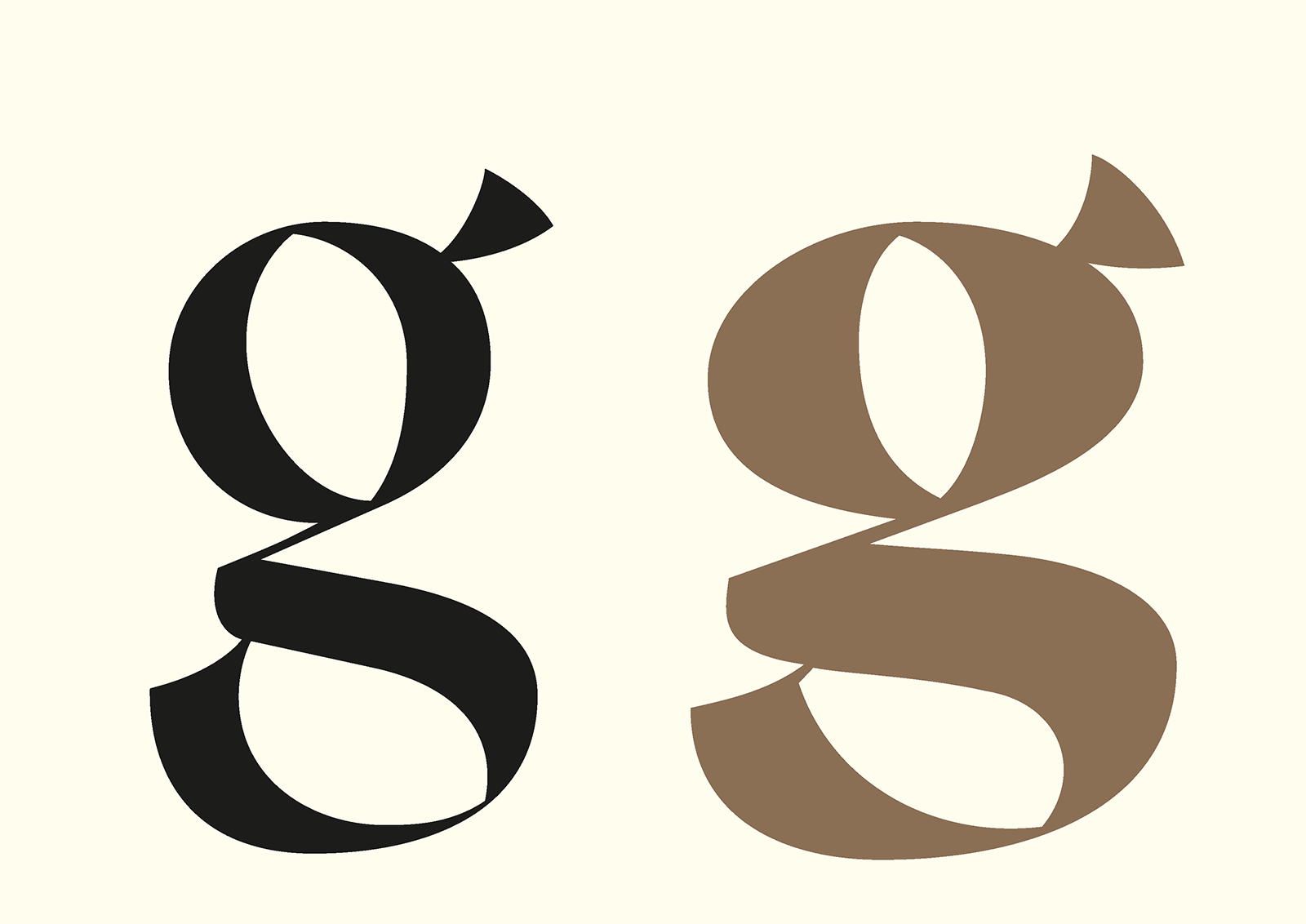
Anvers
The design objective is to make the typeface which is ideal for bilingual typesetting (Latin & Chinese serif). We have seen a lot of Chinese typography and type design inspired by Latin typeface so this is an exercise to do the opposite, to design a Latin typeface to fit with Chinese characters. Not to borrow the Chinese strokes directly but keep the spirit of the typeface and apply effects on the Latin type design. Hence the Latin typeface is good to be use alone and also for bilingual use.